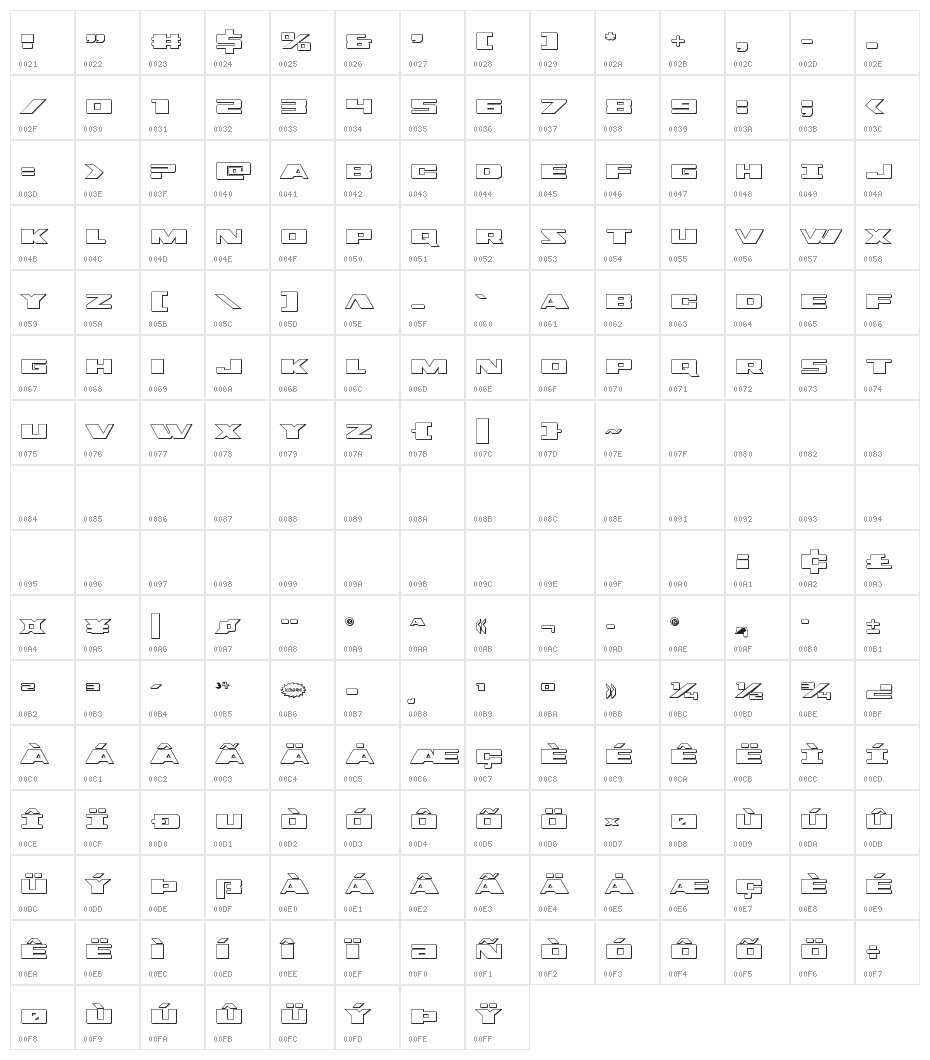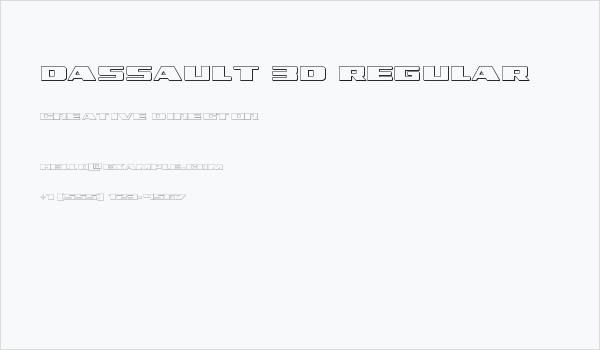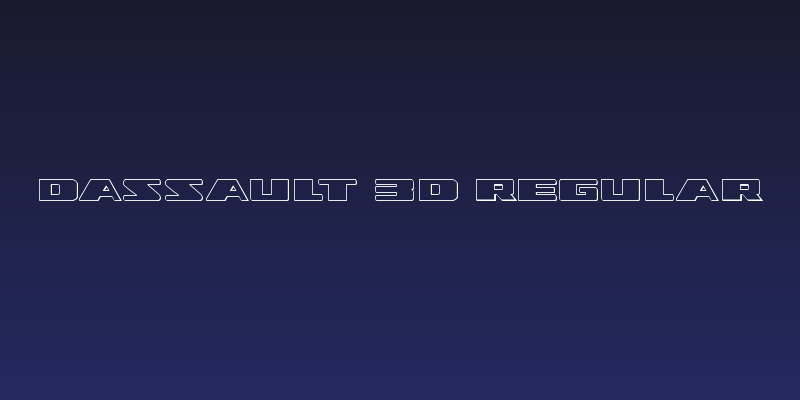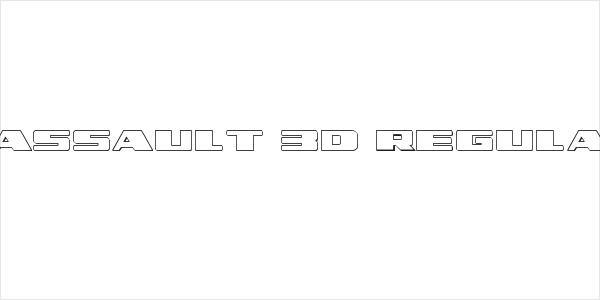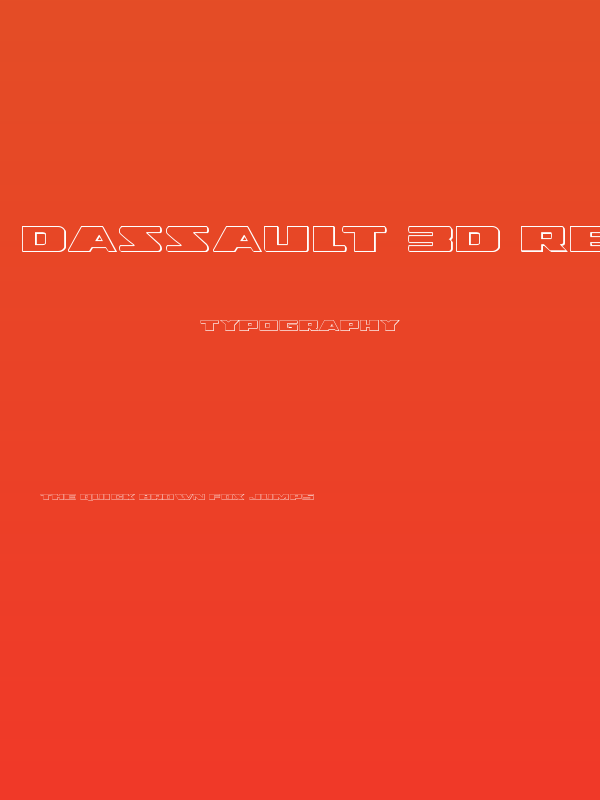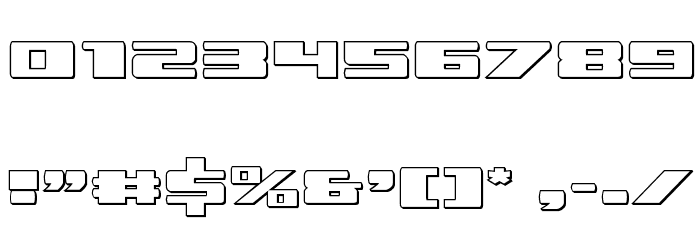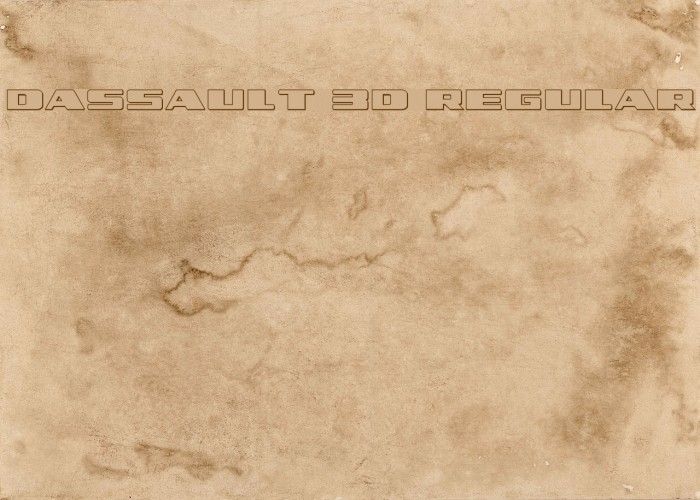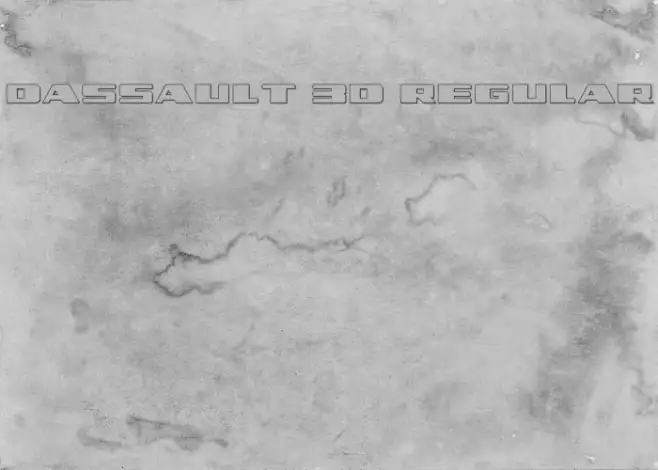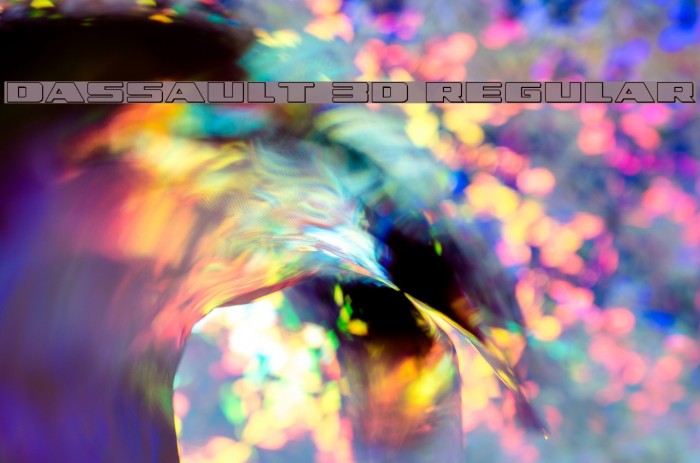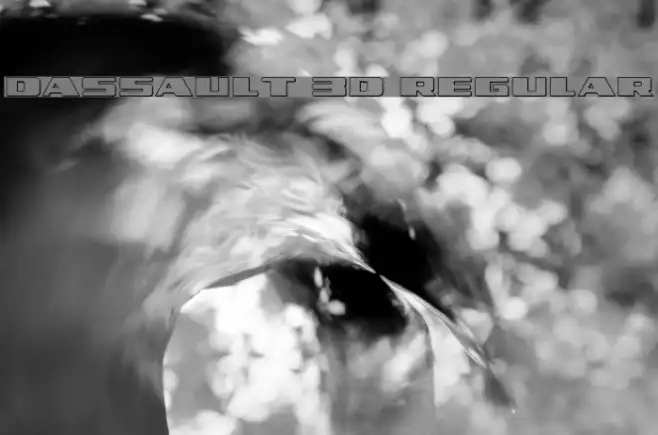
Dassault 3D Regular Font
Dassault 3D Regular Description
This font features a bold, geometric design with a three-dimensional effect that gives it a futuristic and dynamic appearance. The characters are outlined with a consistent stroke width, creating a hollow effect that enhances the 3D illusion. The angular and blocky shapes of the letters convey a sense of strength and modernity, making it suitable for attention-grabbing designs. The uppercase and lowercase letters maintain a uniform style, while the numerals and special characters integrate seamlessly with the overall aesthetic. The font's unique style is ideal for projects that require a bold and innovative look.